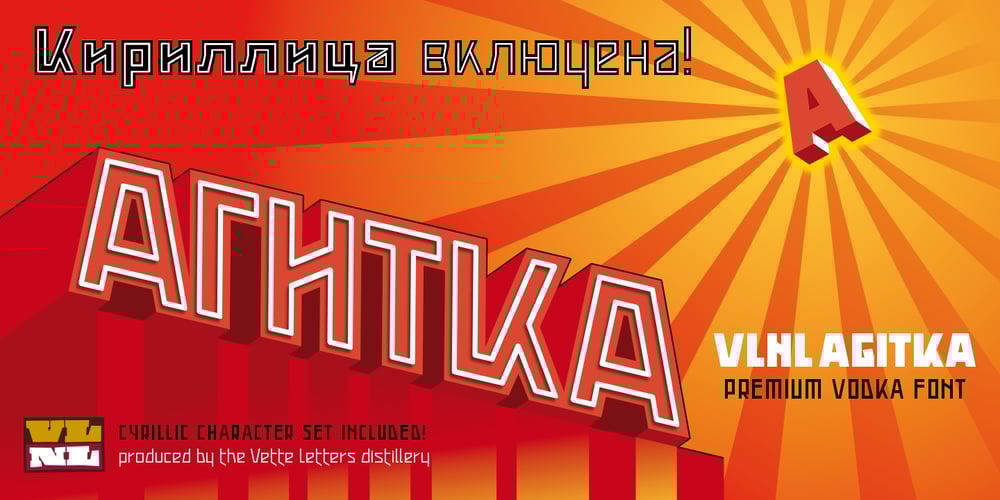
VLNL Agitka Font Family was designed by Henning Brehm and published by VetteLetters. VLNL Agitka contains 8 styles and family package options. As a font designer for films Henning Brehm delivers fonts with a whip-sharp eye for precision. His latest Vette Letters release, VLNL Agitka is a Cyrillic-inspired (and including) alphabet with both feet rooted in Soviet Union-era propaganda posters. Its design is constructivist (look Mom, no curves!) geometric and strong. Like Russian vodka. Aside from the Regular, Light, Bold and Black weights, Agitka comes in four Neon styles as well. For a dazzling design effect, layer those neons over a regular weight for a star struck embossed-letter effect.We would also like to point out the usage of VLNL Agitka in the Bourne Ultimatum movie, for which Brehm designed neon signage for a scene at a Russian supermarket. За здоровье – Za Zdarovje!